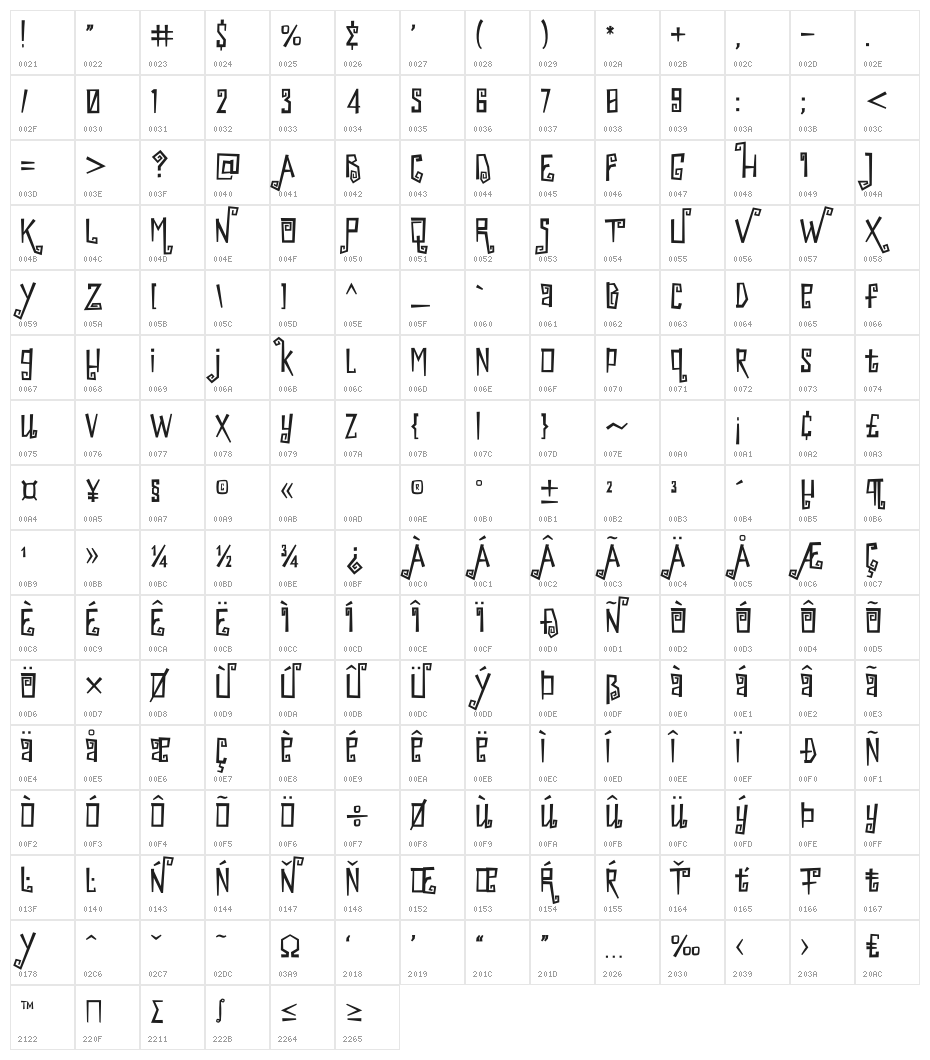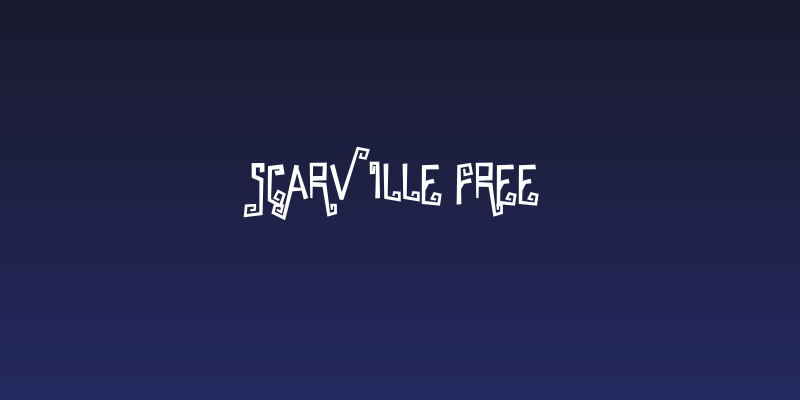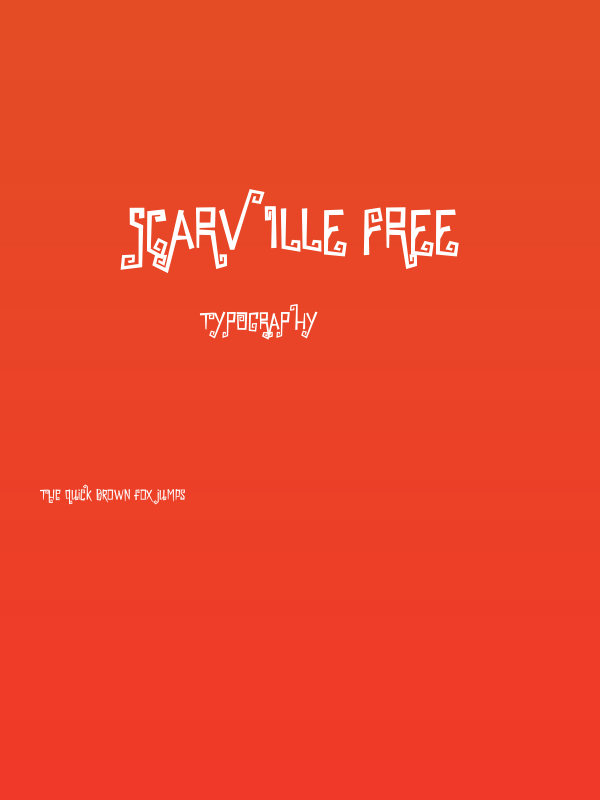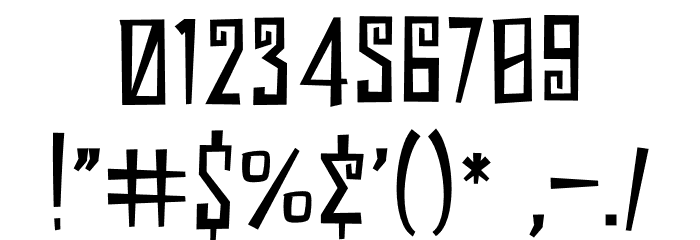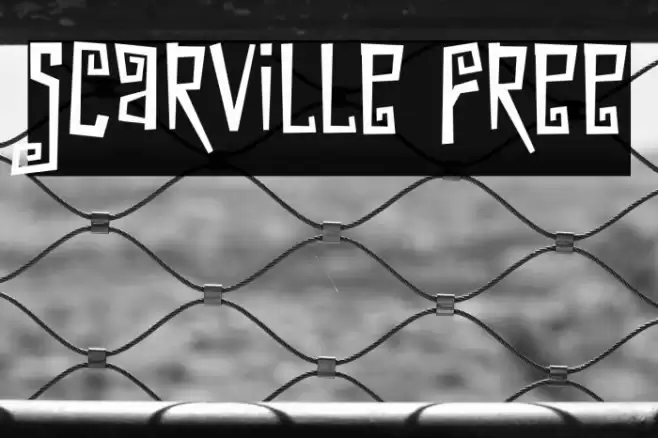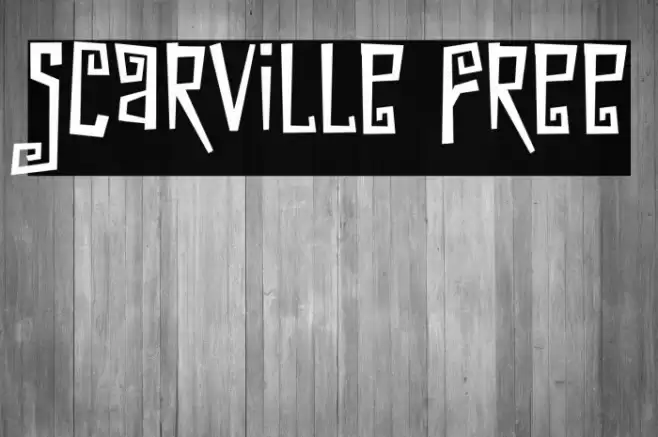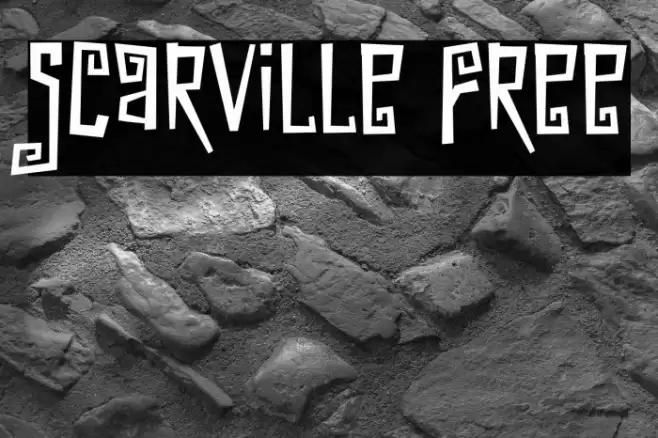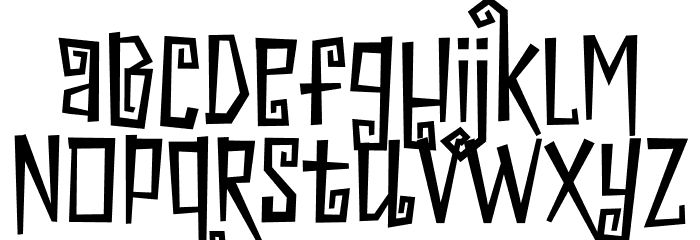
Scarville Free Font
This font features a quirky and playful design with a distinctive spiral motif integrated into each character. The uppercase letters exhibit a bold and angular style, while the lowercase letters maintain a consistent whimsical flair. The numbers are uniquely crafted, echoing the same spiral theme, making them stand out. Special characters are creatively designed, adding to the font's overall eccentric and artistic appeal. The font's style is perfect for projects that require a fun and eye-catching aesthetic, such as children's books, posters, or creative branding materials.
| Proposed Projects | Ideal for children's books, creative posters, and unique branding. |